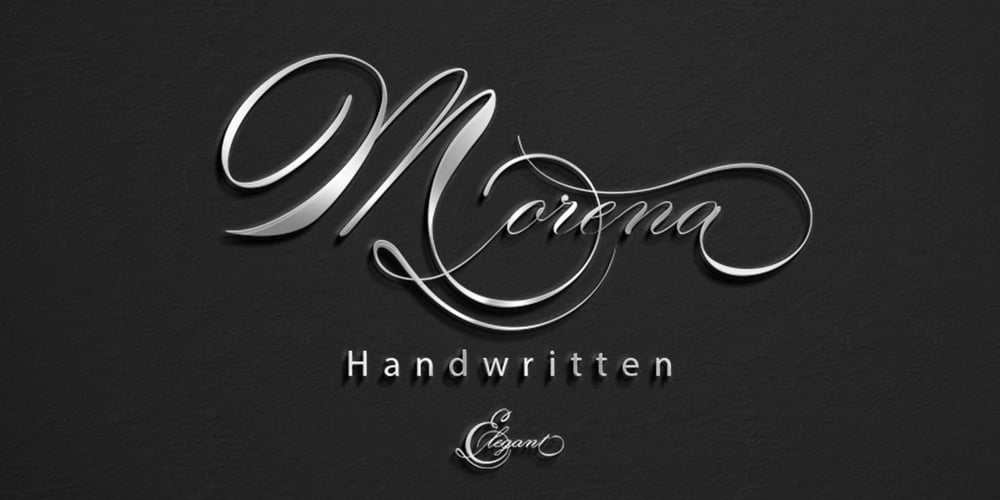
Morena Font Family was designed by Afrizal Hidayat and published by ejhaa. Morena contains 1 styles and family package options. Morena presents a calligraphy script font with captivating evolving characters, reminiscent of classic ornamental copper script infused with modern essence. It’s meticulously crafted to emanate chic elegance. Morena entices with a smooth, clean, feminine, and glamorous allure, effortlessly readable due to its intricate letter connections. Multiple style options for letters further enhance its appeal.